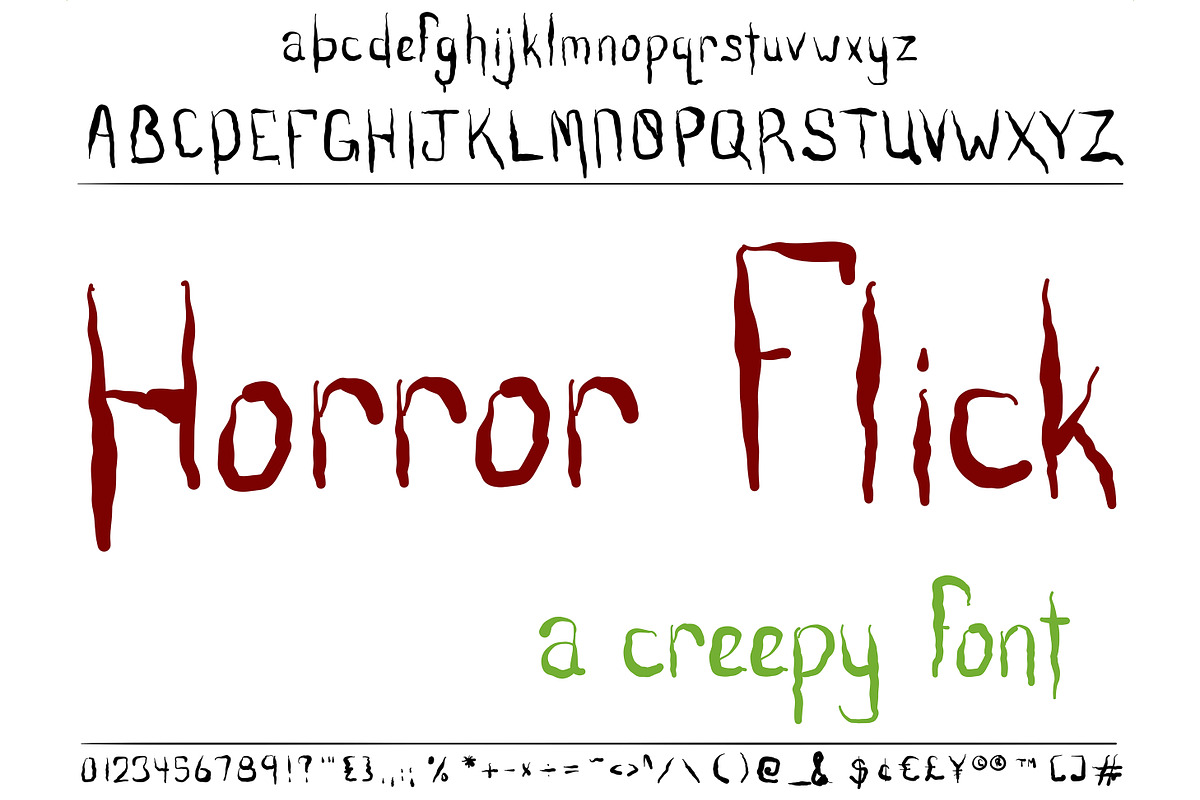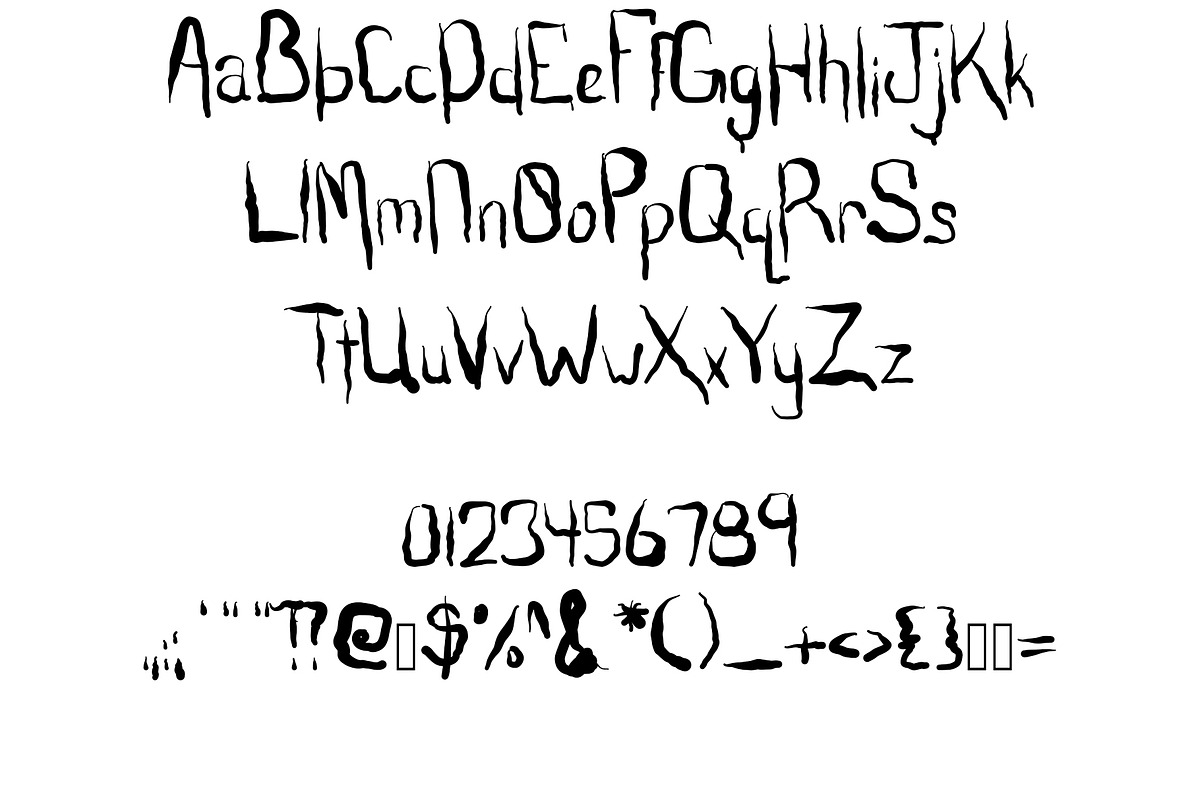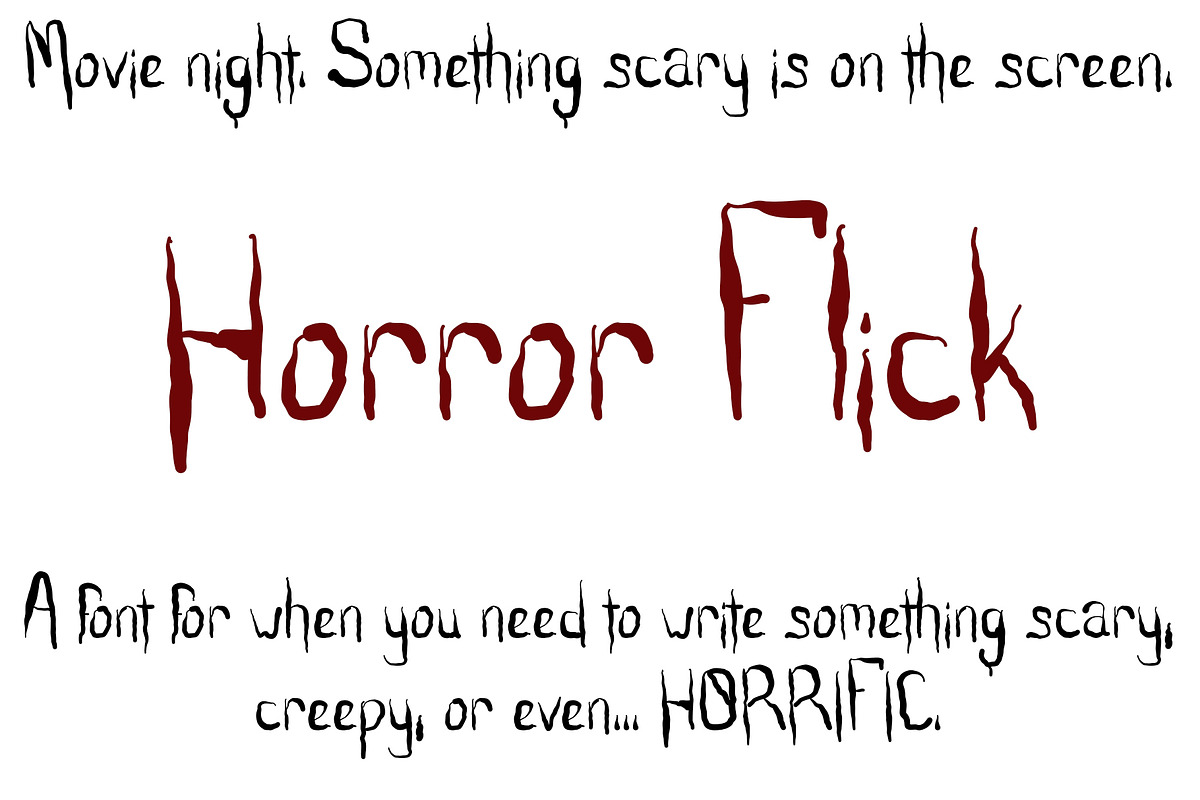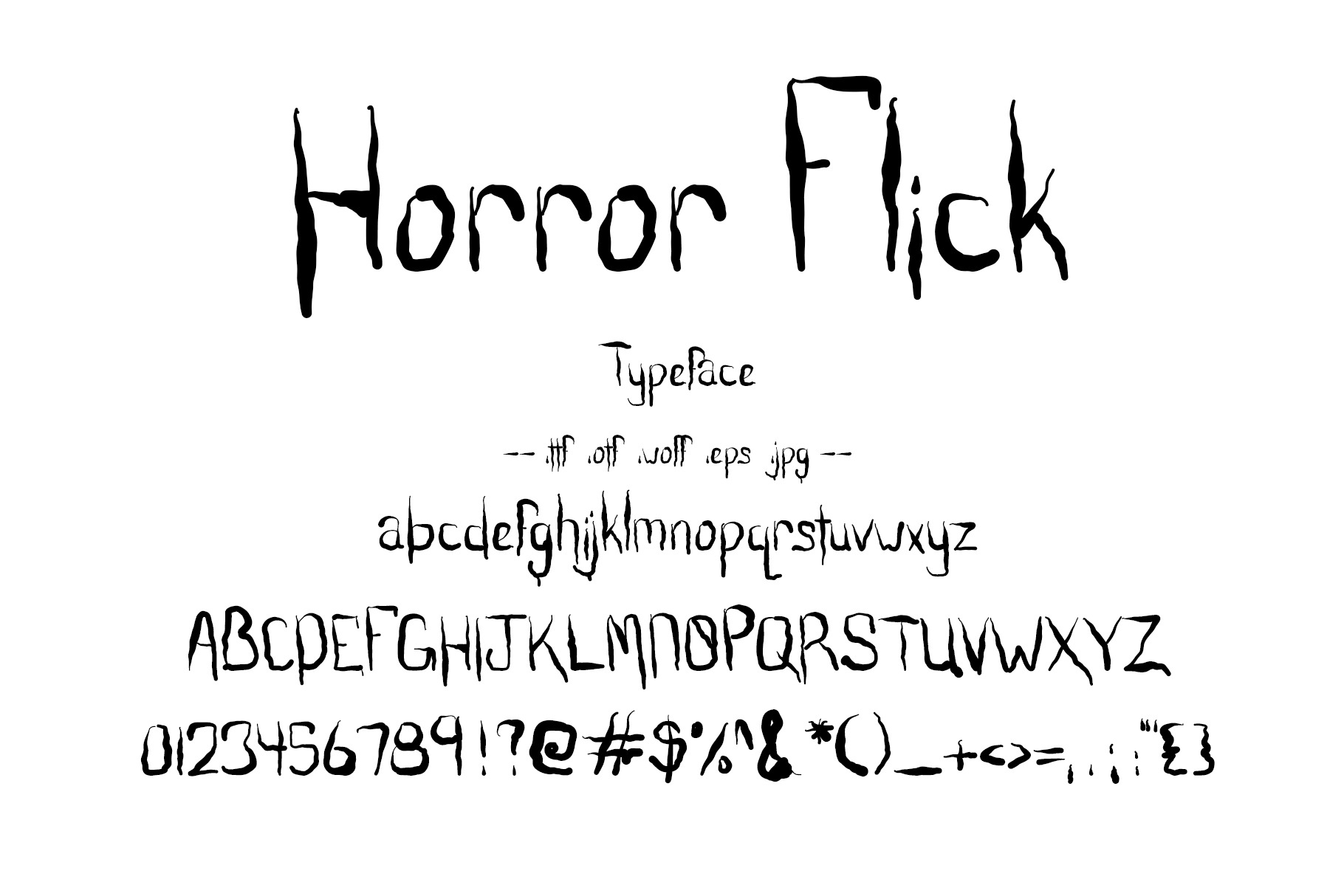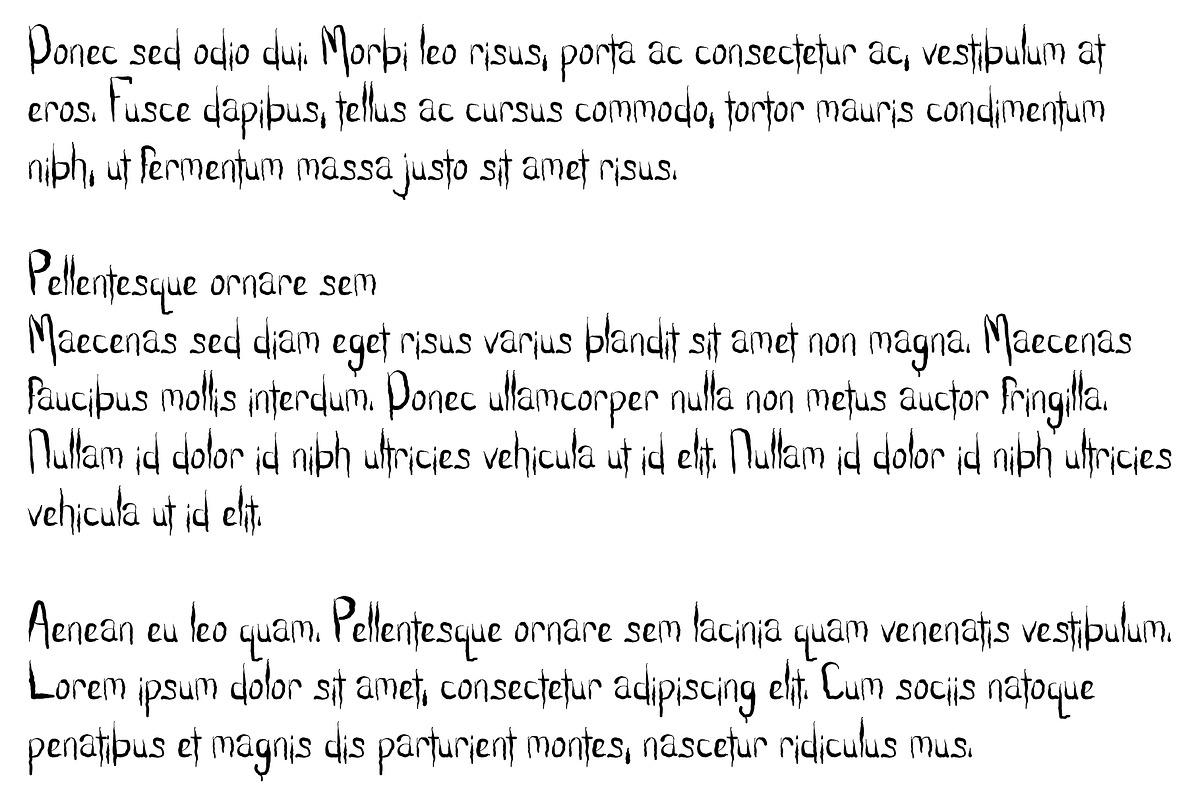
Font Horror Flick Creepy Halloween
Hand drawn font. Letters look like blood dripping. Perfect for a Horror Movie title or scary Halloween party invitation.